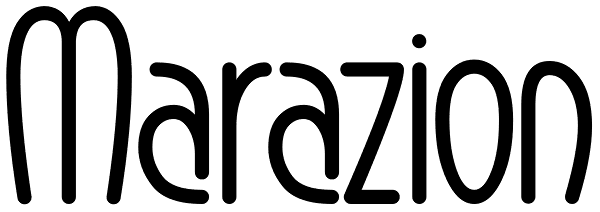
Marazion
Marazion takes its name from a Cornish seaside resort in the UK's West Country. It was inspired by some hand lettering I came across at a local inn on the seafront where I was enjoying a lunchtime pint (always a good place to seek inspiration in my...